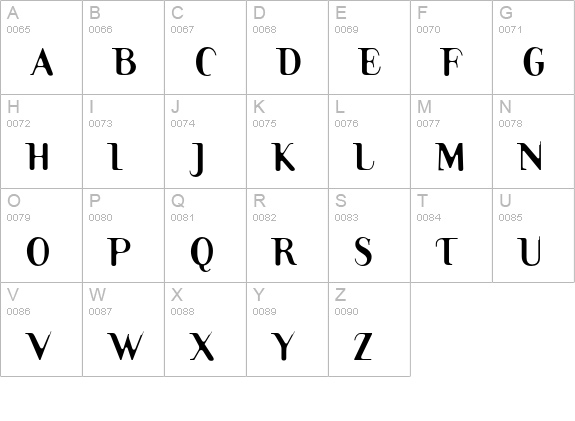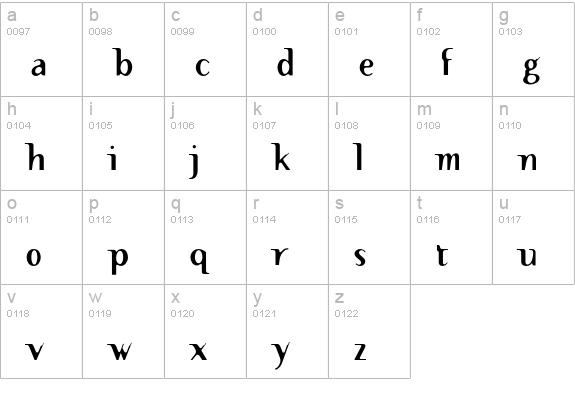
TemaCantante-Bold is a strong, high-contrast variant in the TemaCantante typeface family \xE2\x80\x94 well suited to headlines, attention-grabbing titles, and strong calls-to-action.
TemaCantante-Bold font is a striking and bold typeface that exudes confidence and modernity. With its strong, thick lines and commanding presence, this font is perfect for making a bold statement in any design project. Whether you're creating eye-catching headlines, attention-grabbing logos, or powerful branding materials, TemaCantante-Bold will not disappoint. What sets this font apart is not just its boldness, but also its versatility. It can be used for a wide range of design purposes, from print materials to digital platforms. Its clean and crisp design ensures legibility at any size, making it ideal for both large-scale advertising and small-scale projects. One of the best features of TemaCantante-Bold font is that it is free. That's right, you don't have to spend a dime to enjoy the boldness and impact of this font. It is freely available to download at FontsMarket.com, a reputable online platform for high-quality fonts. This means that you can easily access and use TemaCantante-Bold in your designs without any restrictions or limitations. In addition to its free availability, TemaCantante-Bold font also offers a wide range of characters and glyphs, allowing you to express your creative ideas with ease. Its extensive character set includes uppercase and lowercase letters, numerals, punctuation marks, and special symbols, ensuring that you have all the tools you need to bring your design vision to life. Whether you're a professional designer looking to add a bold touch to your projects or a beginner experimenting with typography, TemaCantante-Bold font is a must-have in your font collection. Its modern aesthetics, versatility, and free availability make it a valuable asset for any design endeavor. So why wait? Download TemaCantante-Bold font now from FontsMarket.com and let your creativity soar to new heights.